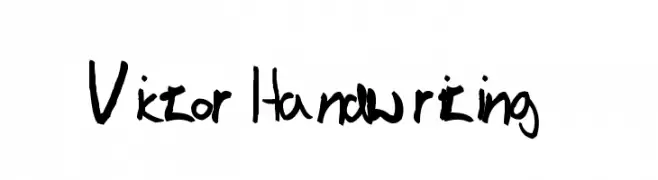
A playful, handwritten font with fluid, dynamic strokes and a casual style.
A playful, informal font with rounded, consistent strokes and a handwritten feel.
A playful, handwritten font with fluid, organic strokes and a casual feel.
A casual, handwritten font with a personal and informal style.